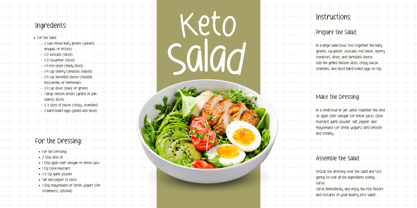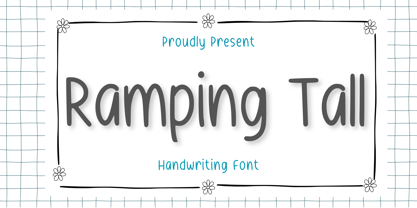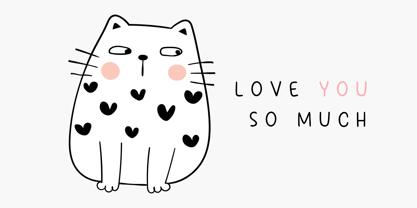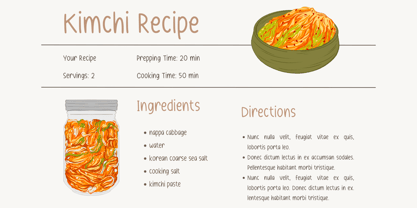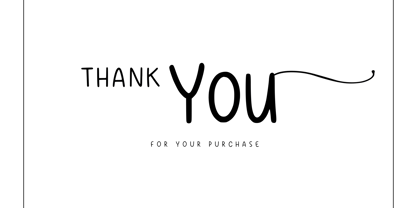
Ramping Tall
Die Schriftfamilie Ramping Tall wurde von Nur Aiysah Amalia entworfen und von Aisyah veröffentlicht. Ramping Tall enthält 1 Stile. Mehr über diese Familie
Discover the fine fusion of simplicity and elegance embodied in the ‘Ramping tall’ font. With its softly styled lines and curves, it promises to breathe life into your creative designs. Make your recipe cards more engaging, or add a special touch to thank you cards. The ‘Ramping Tall’ font elegantly combines the charm of personal handwriting with an artistic impression, making it the perfect tool to add an intimate touch to your creations.
Designer: Nur Aiysah Amalia